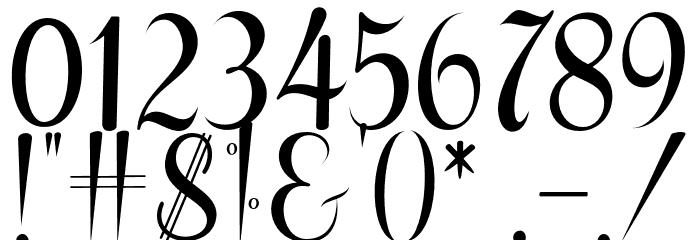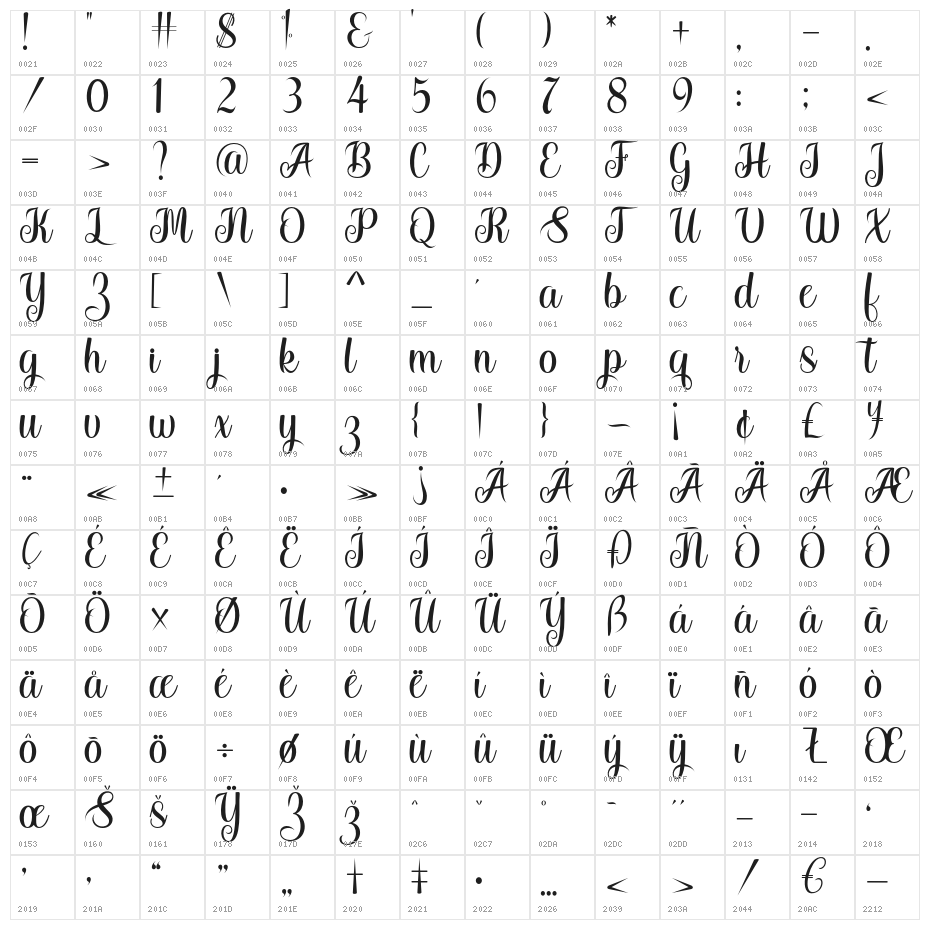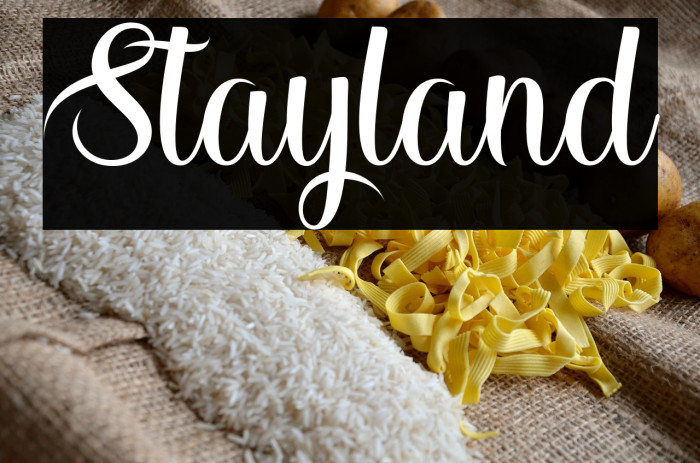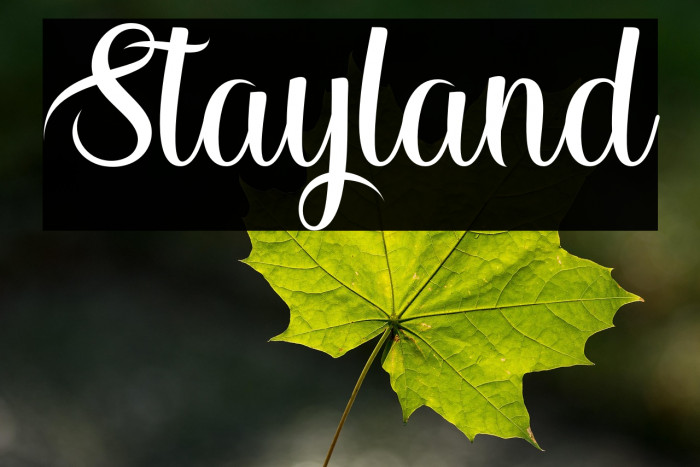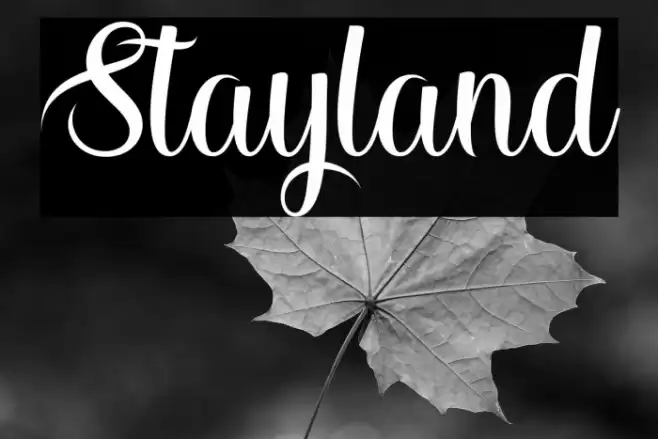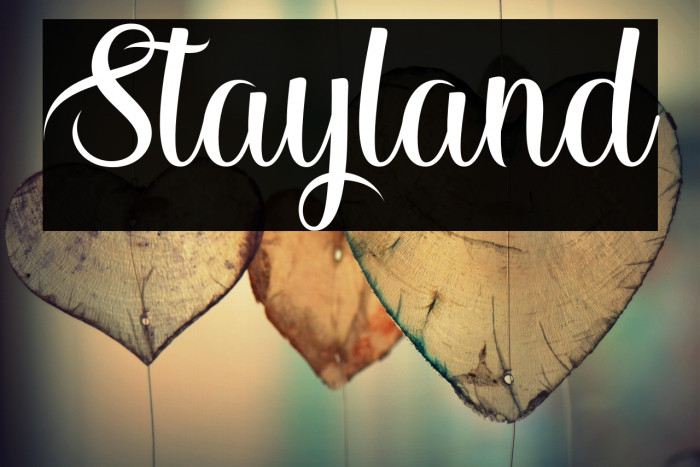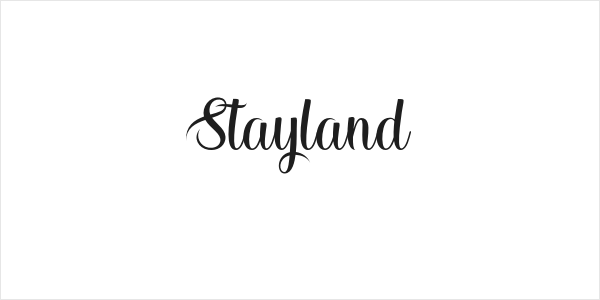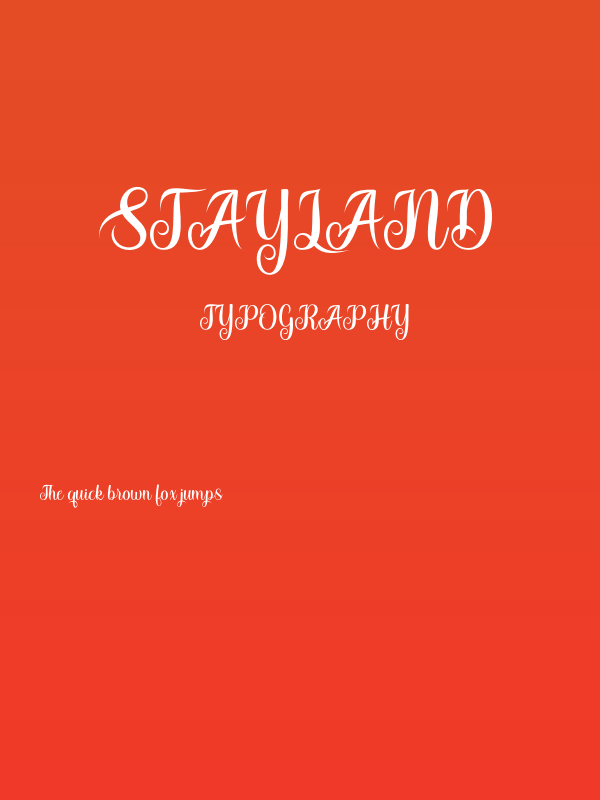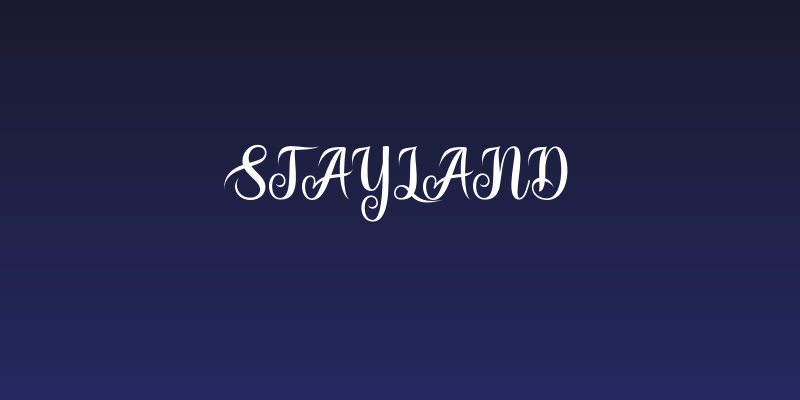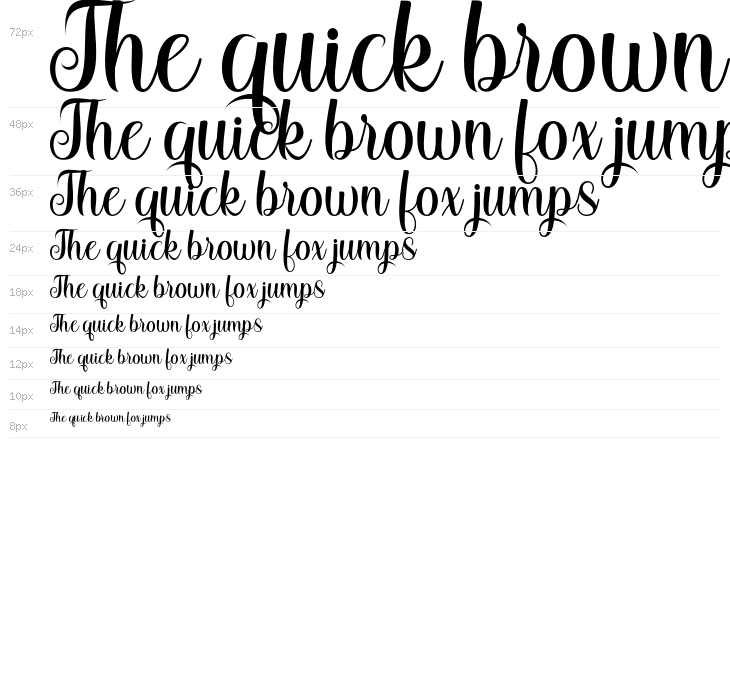
Stayland Font
Stayland Description
This font features a stylish and elegant script design, characterized by its flowing, cursive strokes and decorative flourishes. The uppercase letters exhibit a sophisticated flair with loops and swashes that add a touch of elegance, while the lowercase letters maintain a consistent, fluid motion. The numerals are distinct and bold, complementing the overall aesthetic with their slightly elongated forms. Special characters are crafted with the same attention to detail, ensuring a cohesive look across all glyphs. This font is perfect for projects that require a touch of sophistication and style.